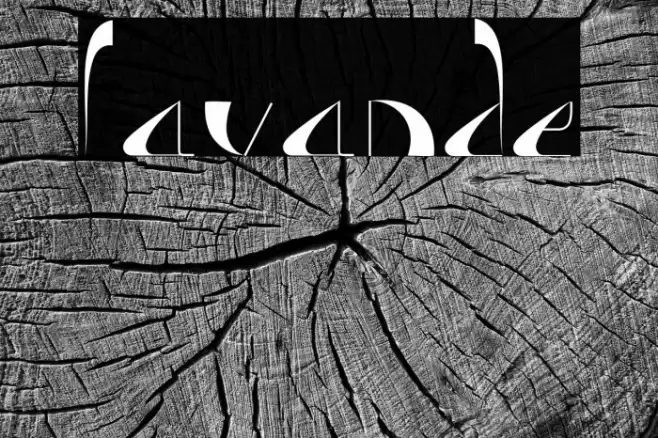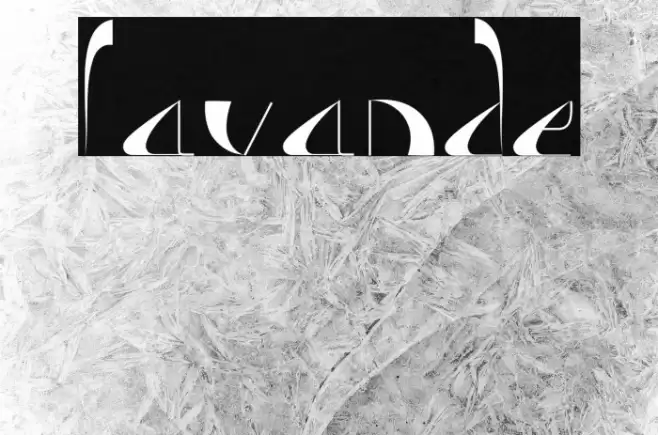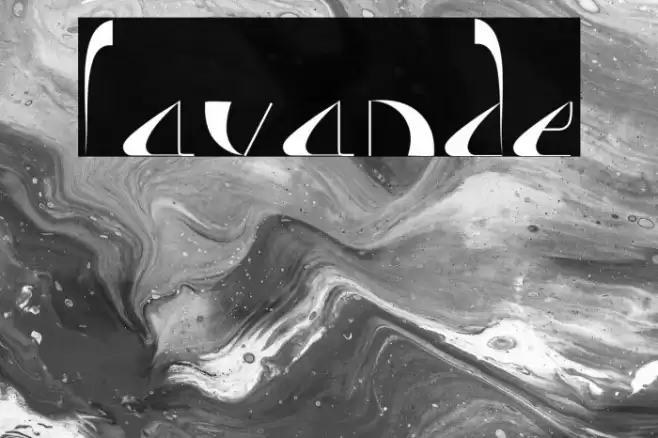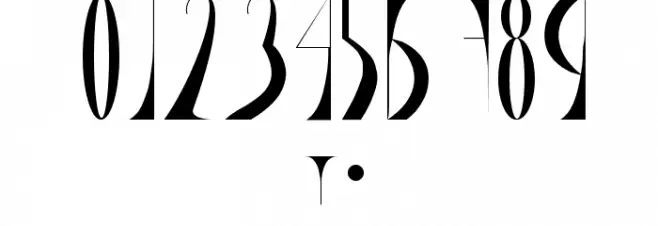
Lavande Font
Lavande Description
This font exhibits a highly decorative and artistic style, characterized by its elegant and elongated letterforms. The strokes are a blend of thick and thin, creating a dynamic contrast that adds to its visual appeal. The letters have a unique, flowing quality with sharp, pointed serifs and curves that give it a sophisticated and modern look. The numerals and special characters maintain this aesthetic, ensuring consistency across the typeface. Its distinct style makes it suitable for creative and expressive design projects.
An artistic and decorative font with elegant, elongated letterforms and dynamic contrast from Uncategorized fonts.
- Proposed Projects: Ideal for use in branding, fashion magazines, luxury product packaging, and artistic posters.
- Use Case: Logos, Headlines, Artistic projects